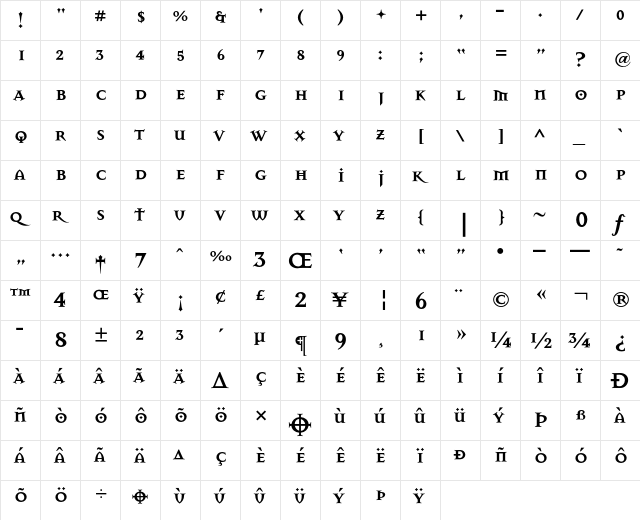
MasonSuper Bold
Design Context for MasonSuper Typeface
MasonSuper is a composed and adaptable typeface that performs quietly and consistently across a wide range of design contexts. The heavy weight commands attention and anchors typographic hierarchies.